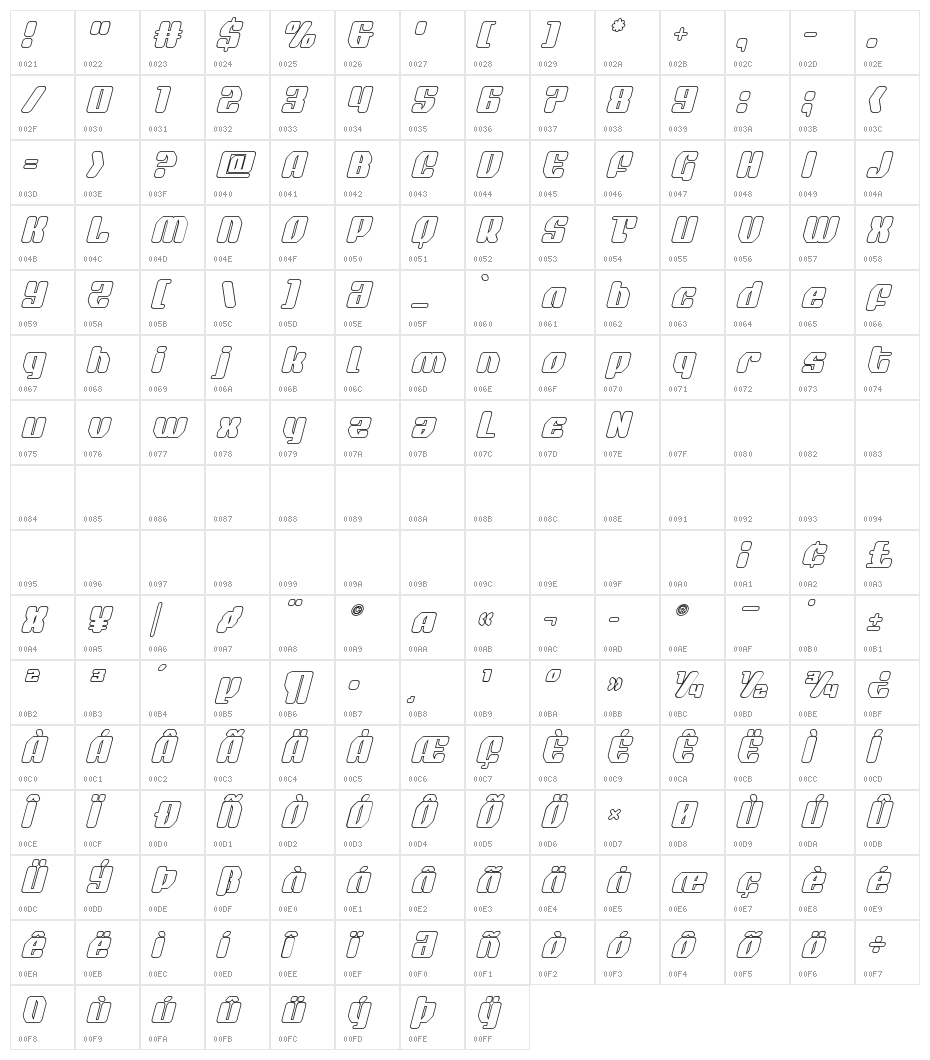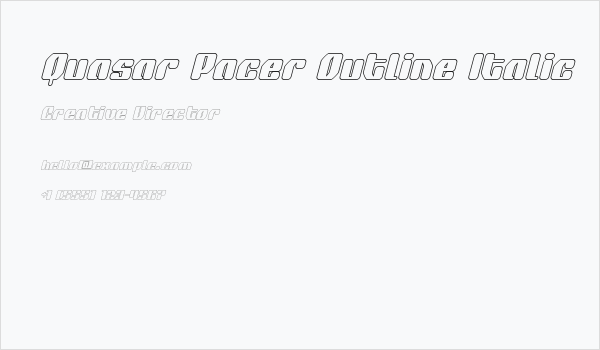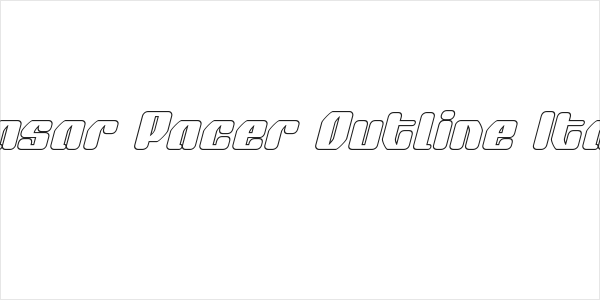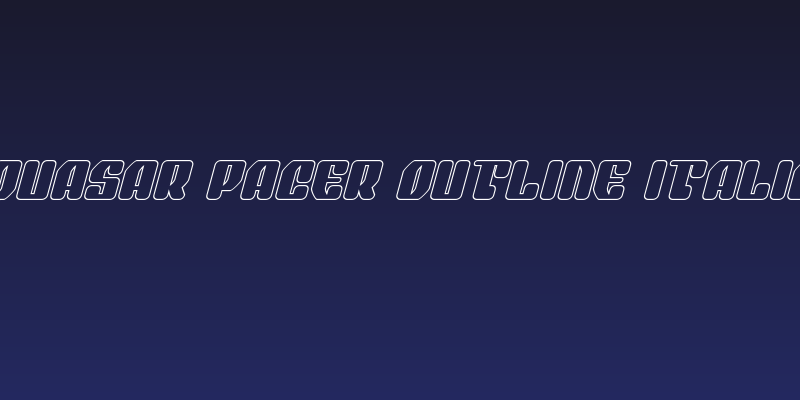
Quasar Pacer Outline Italic Font
Quasar Pacer Outline Italic Description
This font features a unique outline style with a futuristic and geometric flair. Each character is designed with a consistent stroke width, creating a cohesive and modern appearance. The italic slant adds a dynamic and forward-moving energy, making it ideal for projects that require a sense of motion or innovation. The uppercase and lowercase letters maintain a uniform height, contributing to a balanced and harmonious look. The numerals and special characters are crafted with the same attention to detail, ensuring versatility across various applications. This font's distinct outline and italic style make it stand out, perfect for eye-catching designs.
| Proposed Projects | Ideal for sci-fi themed designs, tech branding, posters, and innovative product packaging. |